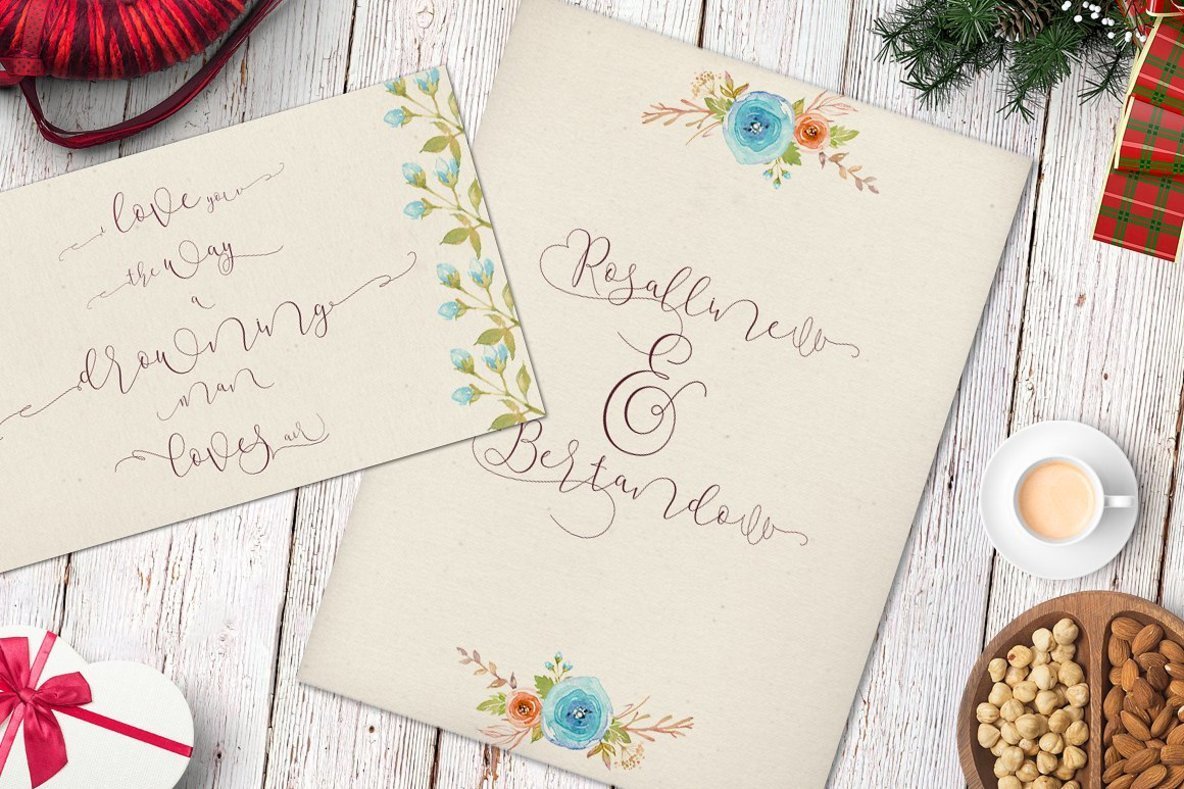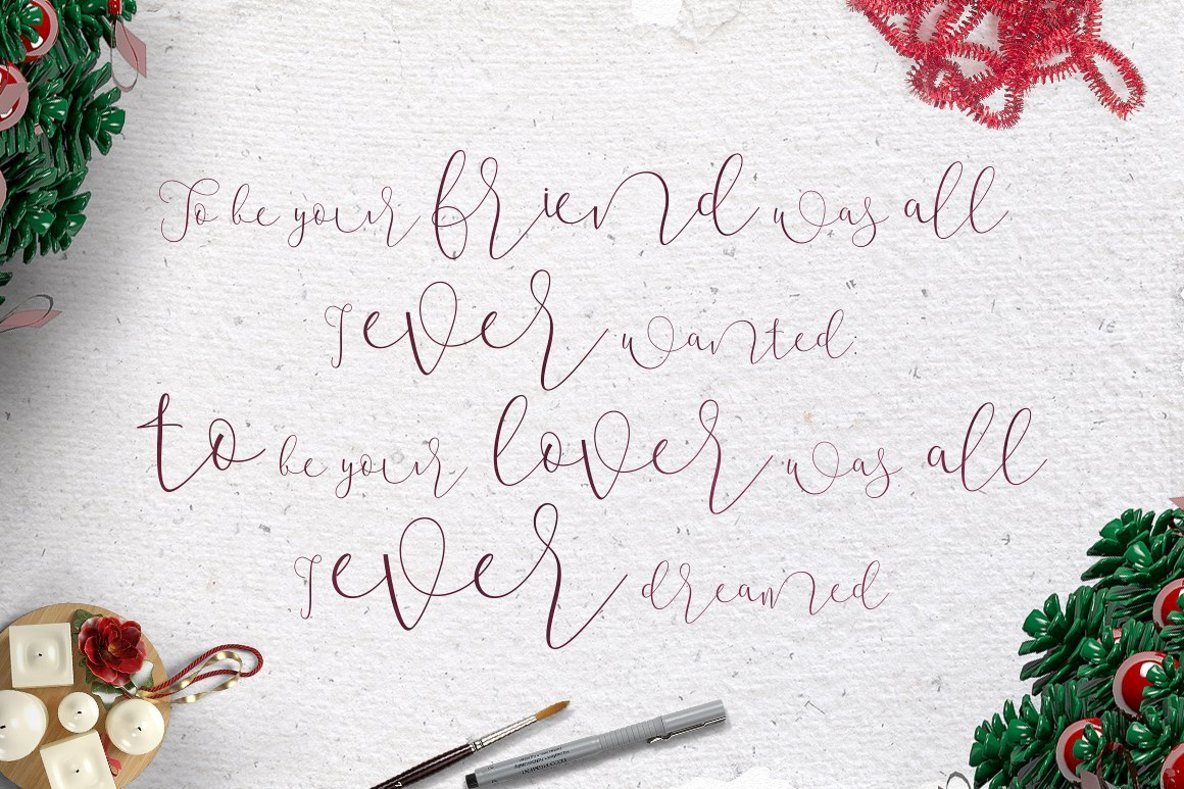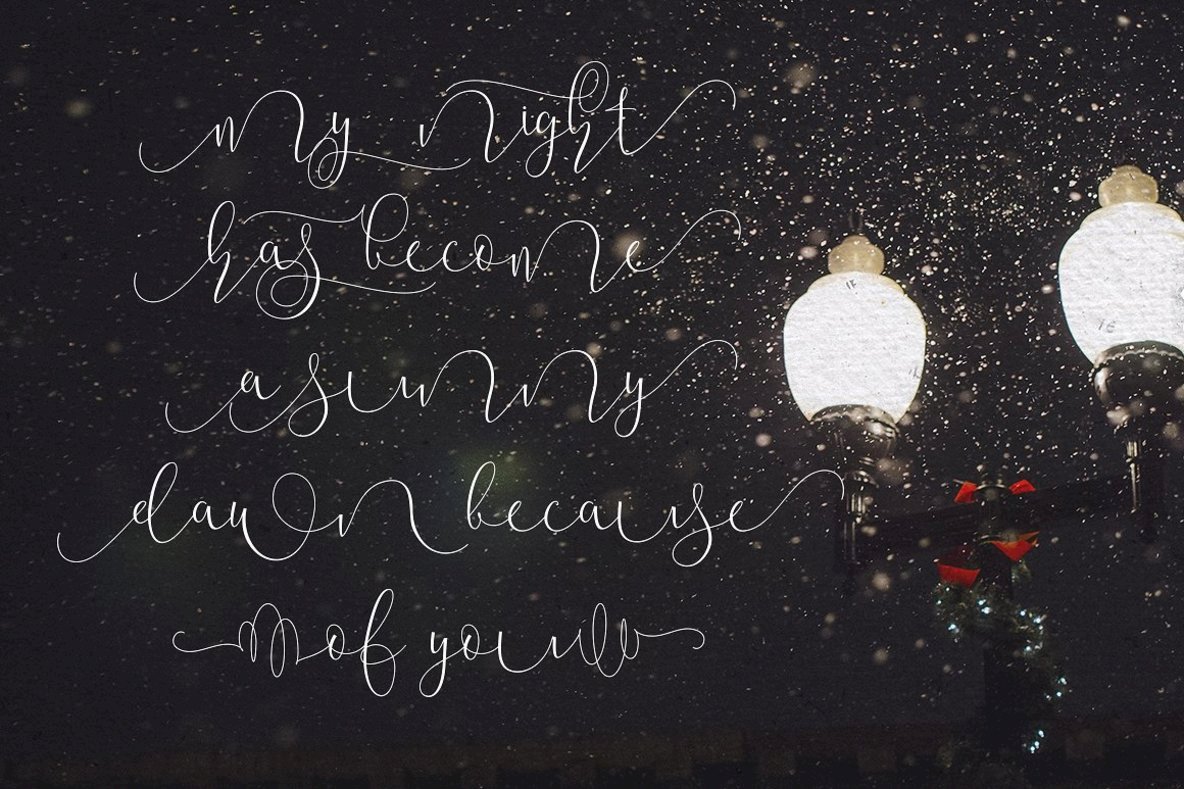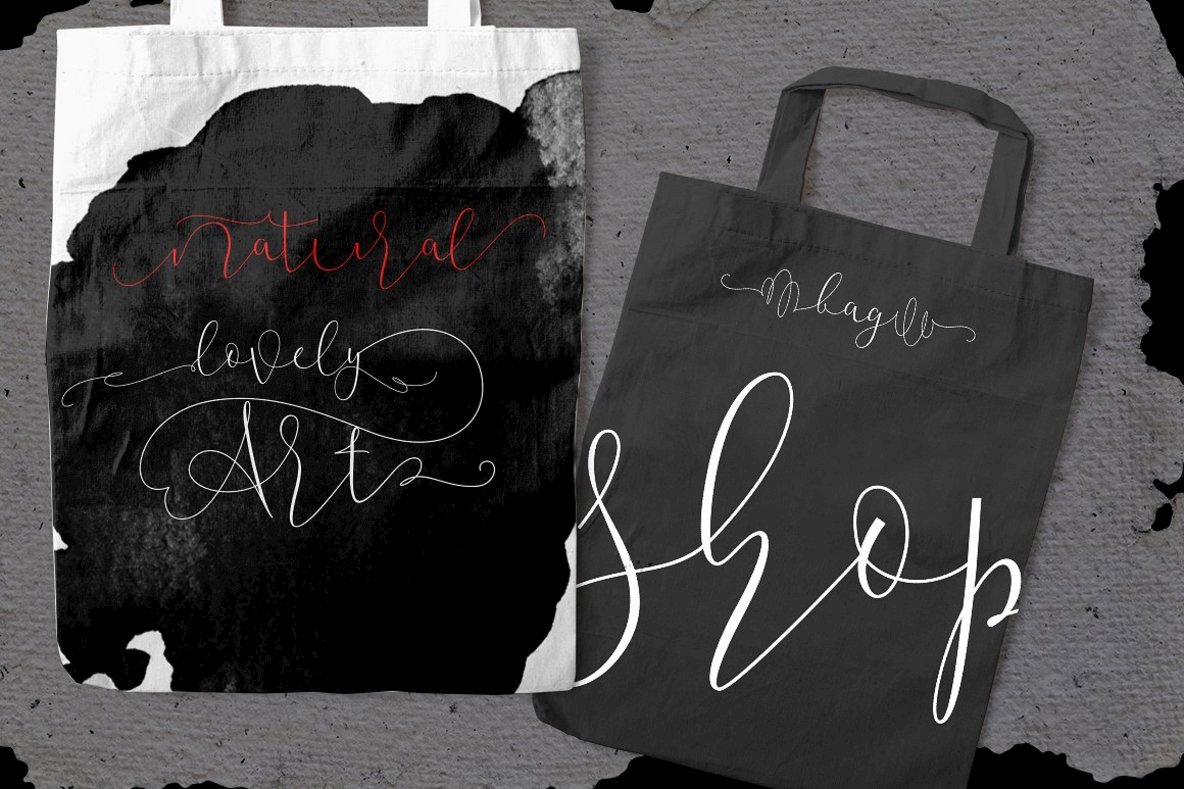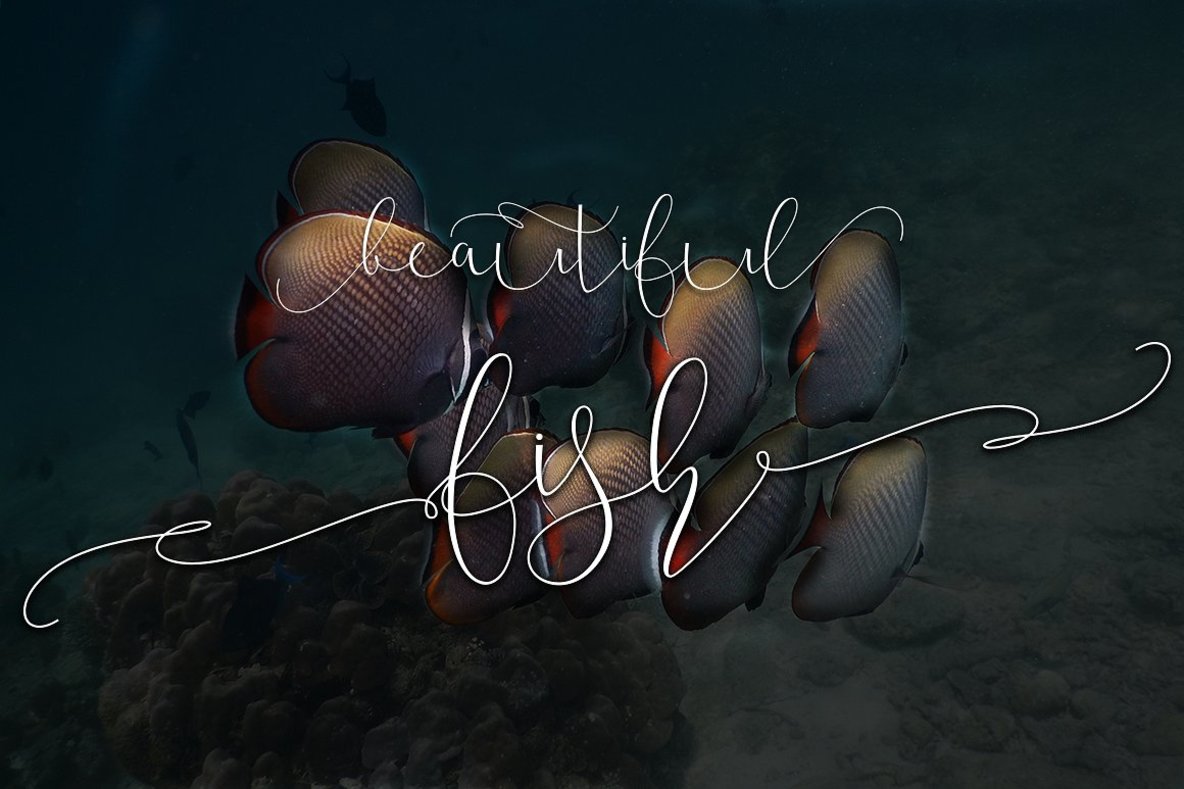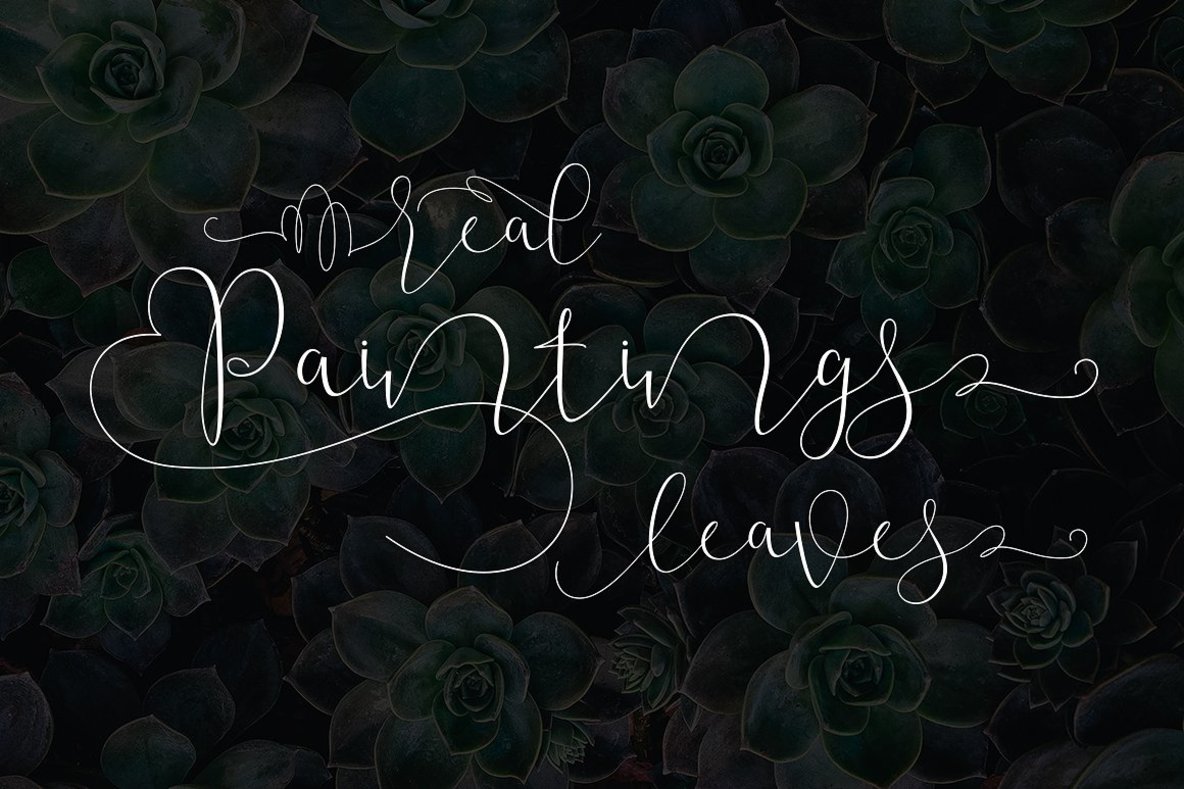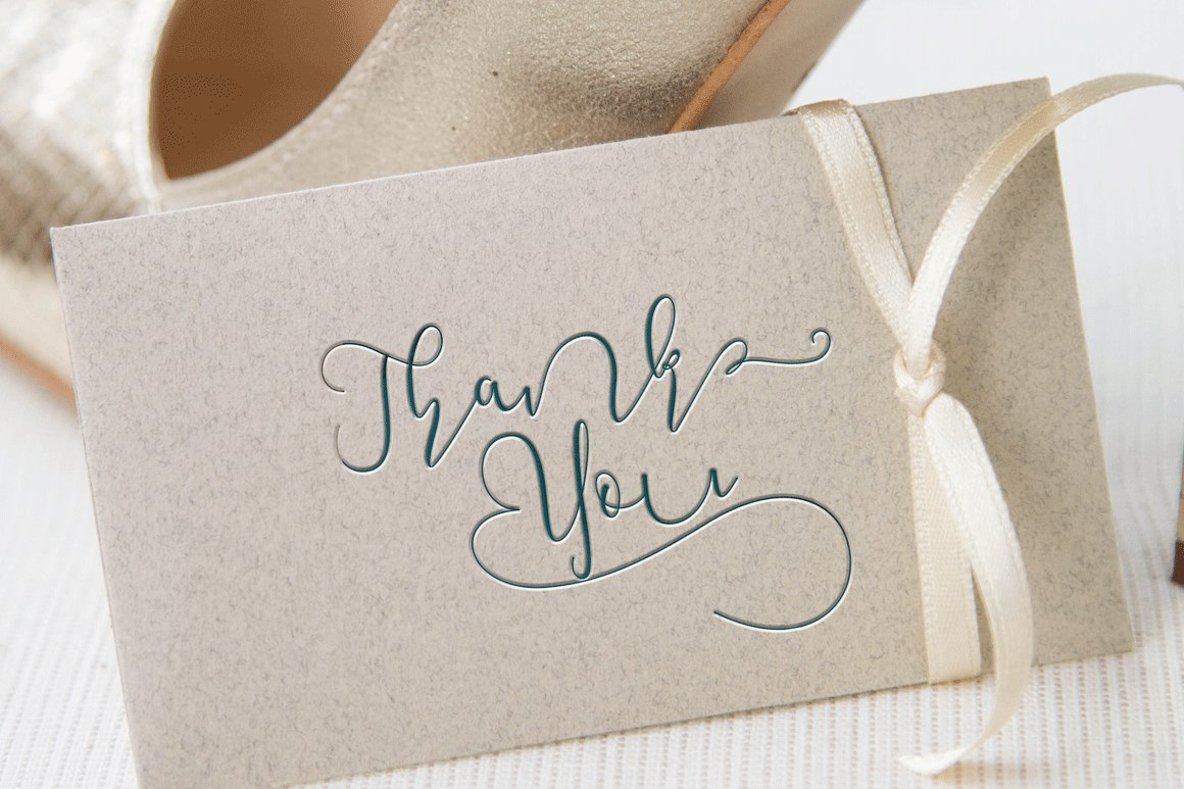
Mallow Script Font
Mallow Script
Discover the charm of modern calligraphy with Mallow Script. Crafted with handwritten artistry, this typeface boasts unique calligraphic forms and a natural writing style, perfect for designers seeking an elegant and contemporary touch. Additionally, Mallow Script is compatible with popular design software like Adobe Photoshop, Illustrator, InDesign, and CorelDraw. It supports a wide array of European languages, ensuring versatility across projects. From headings and logos to wedding invitations and apparel design, this font elevates any creative endeavor with its sophisticated elegance and flexible functionality.Mallow Script: Effortless Calligraphy for Every Design